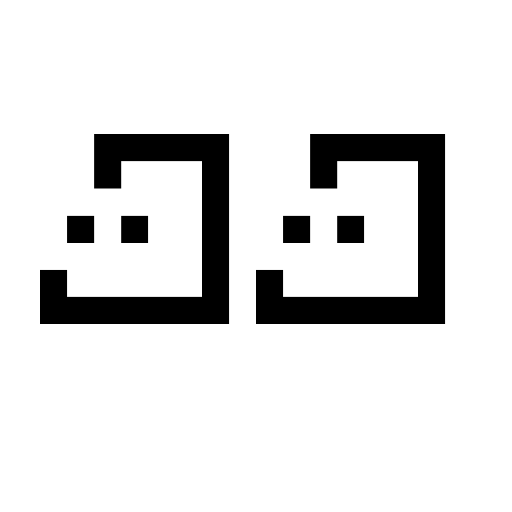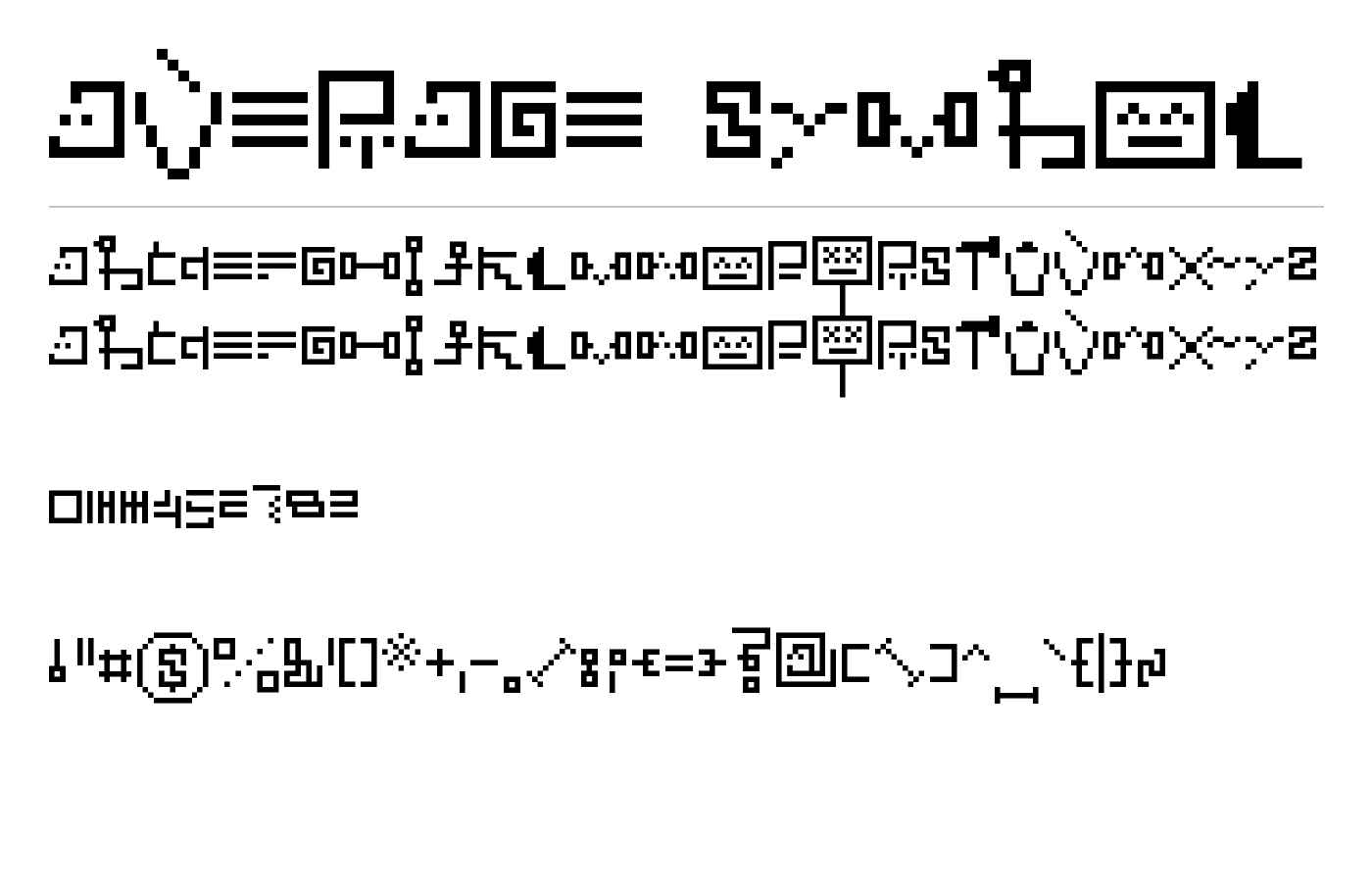
Average Symbol Font is a pixelated, monospaced typeface with a futuristic and digital aesthetic. Its blocky, geometric characters and symbols create a retro-computer or sci-fi vibe, making it perfect for tech-themed designs, digital art, or any project seeking a unique, abstract look. This font works best in headlines, logos, or creative displays where its distinctive style can shine without compromising readability.
Average symbol Font